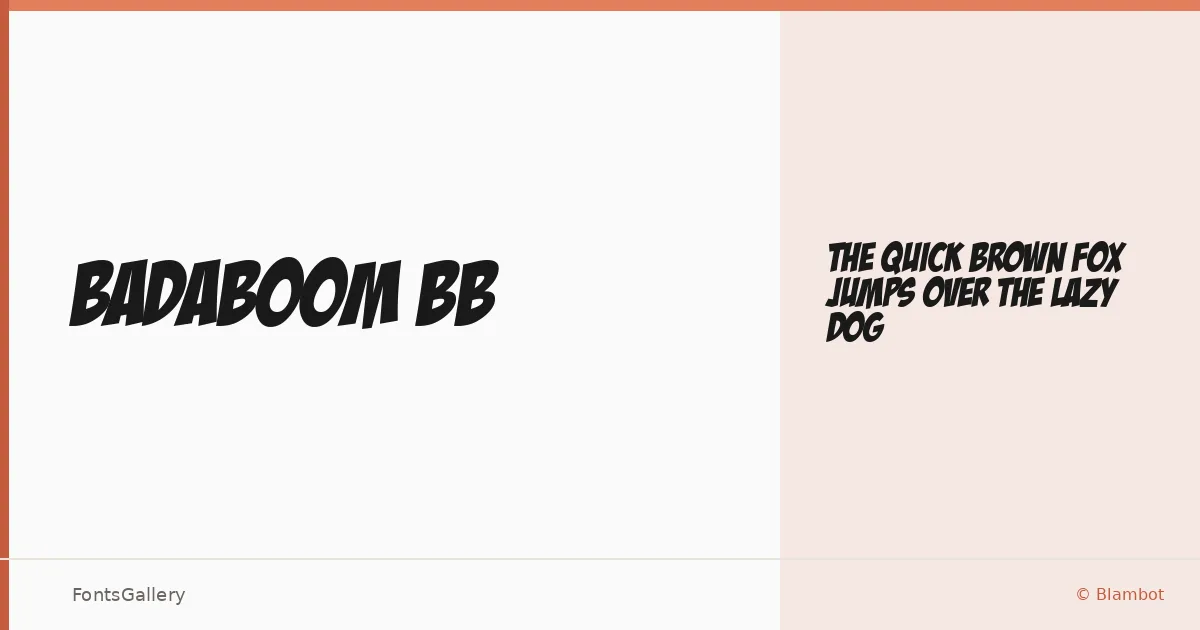
About BadaBoom BB Font
There is an unmistakable energy to hand-lettered comic display type, and BadaBoom BB captures it well — thick, explosive strokes that feel like they were drawn with a brush at full swing rather than constructed at a drawing table. Released by Blambot, it arrives as a single Regular cut in TTF format.
This is a display face through and through: bold, playful, and deliberately whimsical, with the kind of letterforms that recall action-comics sound effects and vintage screen-print signage. The weight is heavy and confident, the edges organic rather than mechanical, giving text an immediate sense of impact. There are no Light or Italic companions here — just one cut doing one thing with conviction.
It earns its place on posters, social media graphics, advertisement headlines, and T-shirt designs where the goal is to stop the eye before a single word is read. Paired against something clean and neutral like Helvetica or Aileron, the contrast is sharp and effective; set alongside the editorial refinement of Canela or ABC Arizona, it creates a deliberate tension between raw energy and typographic elegance. Abrade also offers an interesting counterpoint if you want something with more structural weight on the body copy side.